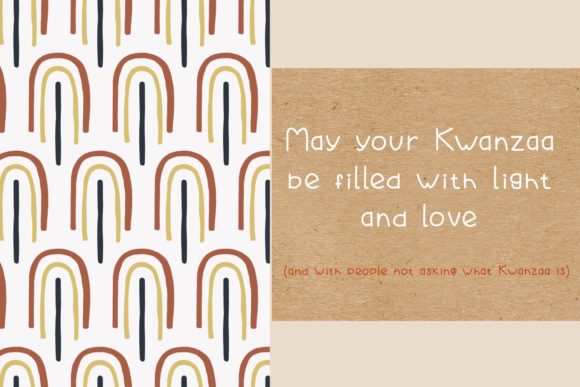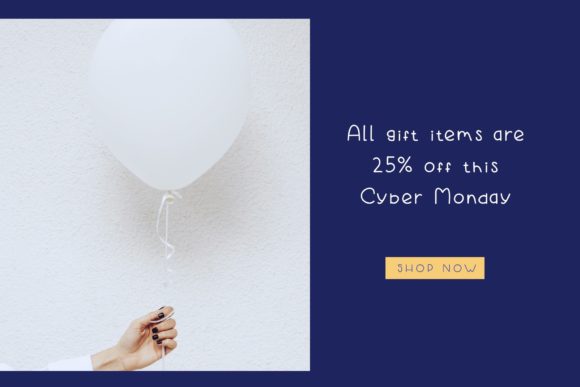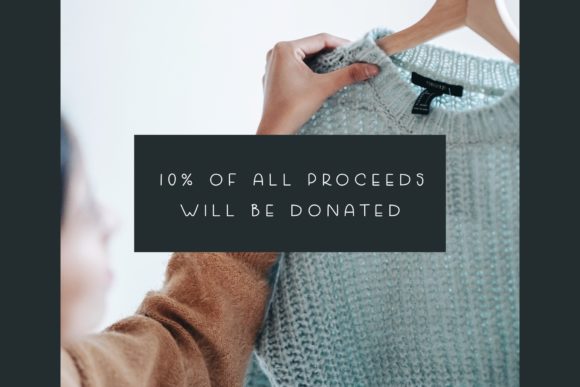
Gracie Font: The Perfect Handwritten Font for Chalkboard Quotes and Teaching Materials
Are you a designer, crafter, or educator looking for a font that can add a personal touch to your designs? Look no further than the Gracie Font! This cute and friendly handwritten font is perfect for creating chalkboard quotes, teaching materials, and other designs that require a authentic and realistic feel.
What is Gracie Font?
Gracie Font is a carefully crafted handwritten font that mimics the look of traditional chalkboard writing. Its unique and charming style makes it perfect for a variety of design projects, from educational materials to social media graphics. With its authentic look and feel, Gracie Font is sure to add a personal touch to your designs and make them stand out from the crowd.
Features of Gracie Font
So, what makes Gracie Font so special? Here are just a few of its key features:
- Cute and Friendly Style: Gracie Font has a playful and approachable style that is perfect for designs that require a personal touch.
- Handwritten Look: This font has a genuine handwritten look that will add a touch of authenticity to your designs.
- Chalkboard-Inspired: Gracie Font is inspired by traditional chalkboard writing, making it perfect for creating chalkboard quotes and teaching materials.
- Easy to Read: Despite its handwritten style, Gracie Font is easy to read and understand, making it perfect for designs that require a clear and concise message.
Uses for Gracie Font
So, what can you use Gracie Font for? The possibilities are endless! Here are just a few ideas to get you started:
- Chalkboard Quotes: Use Gracie Font to create beautiful and inspiring chalkboard quotes that will add a touch of personality to any room.
- Teaching Materials: Gracie Font is perfect for creating teaching materials, such as worksheets, posters, and presentations, that require a personal and engaging touch.
- Social Media Graphics: Use Gracie Font to create eye-catching social media graphics that will help you stand out from the crowd.
- Crafting and Scrapbooking: Gracie Font is also perfect for crafting and scrapbooking projects, such as journaling and card making.
Why Choose Gracie Font?
So, why should you choose Gracie Font for your design projects? Here are just a few reasons:
- Unique Style: Gracie Font has a unique and charming style that will add a touch of personality to your designs.
- Authentic Look: This font has an authentic look and feel that will make your designs stand out from the crowd.
In conclusion, Gracie Font is a cute and friendly handwritten font that is perfect for designers, crafters, and educators looking to add a personal touch to their designs. With its authentic look and feel, Gracie Font is sure to make your designs stand out from the crowd. Whether you’re creating chalkboard quotes, teaching materials, or social media graphics, Gracie Font is the perfect choice. So why wait? Download Gracie Font today and start creating beautiful and inspiring designs!